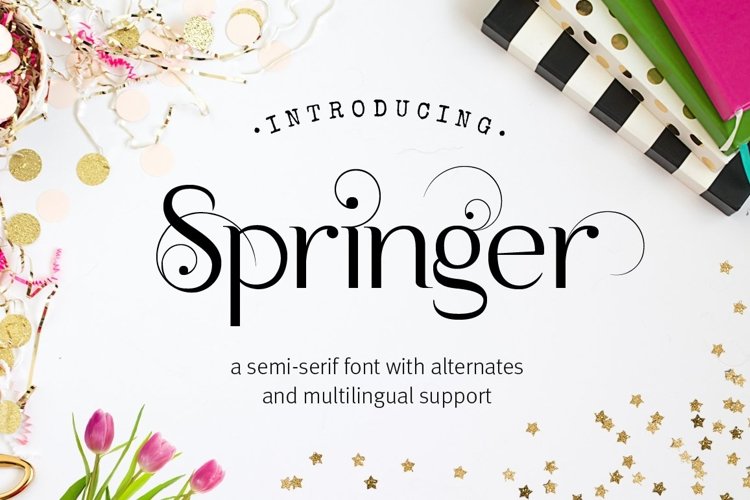
Web Font Springer
A few years ago I created a logo which used the 'Spring' letters seen here. I created the letters especially for the design. Since then I have been selling premade logos and I ended up having a complete set of uppercase letters with the swirls. So, I've been working (slowly) on all of the other glyphs you can see in one of the pictures and have made this beautiful font for you :)
Sometimes just using the main font with the plain semi-serif letters will work but changing one to 3 of the letters to the alternate glyphs will give your word that extra pop.
Springer is perfect for wedding design projects, invitations, greeting cards, typography design, watermarks, logos, text, monograms and more.
The font includes some foreign language glyphs so please do take a look at the other screenshots to see what's included in this font and what you can do with it.